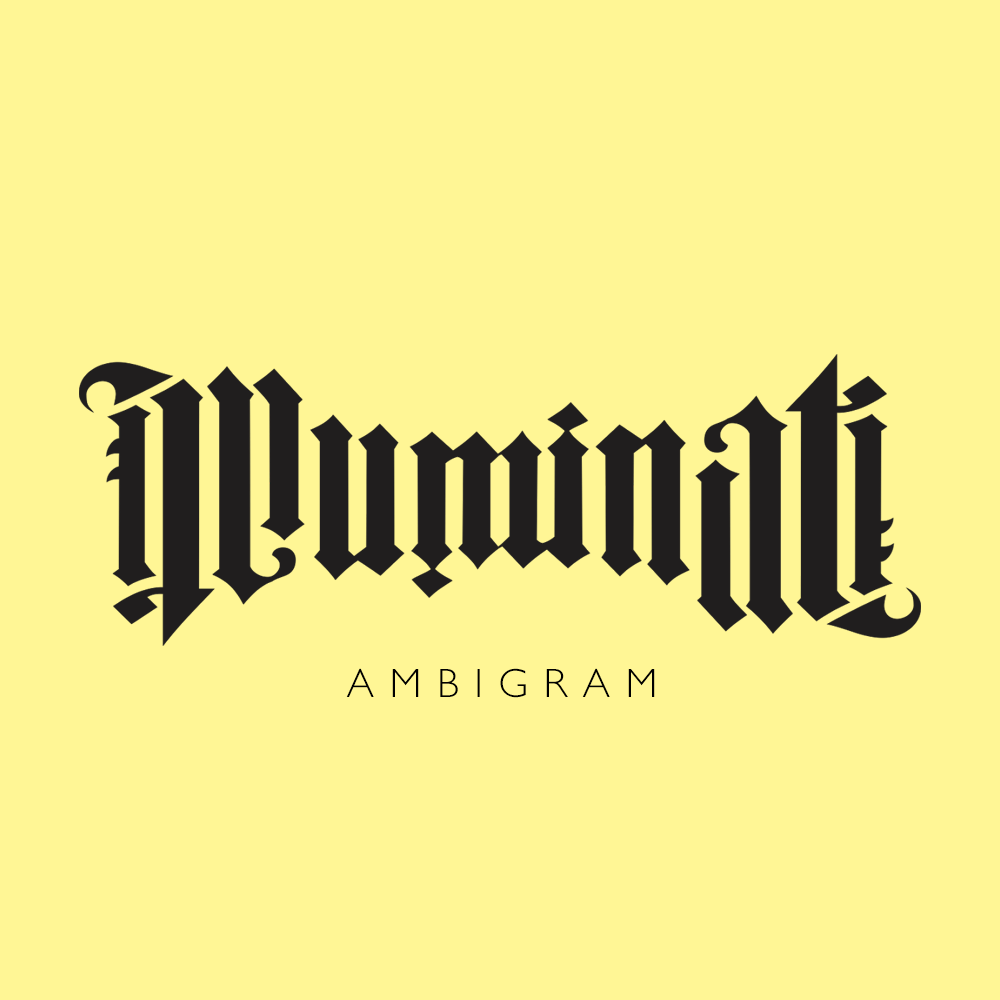
Ambigram Font
An ambigram is a word, art form or other symbolic representation whose elements retain meaning when viewed from a different orientation or perspective. Ambigrams are often designed to be symmetrical, so that they can be read the same way from different directions.
They can be created by hand or using computer software, and are often used for tattoos, logos, and other graphic design applications. Ambigrams are also known as inversions or word flips.